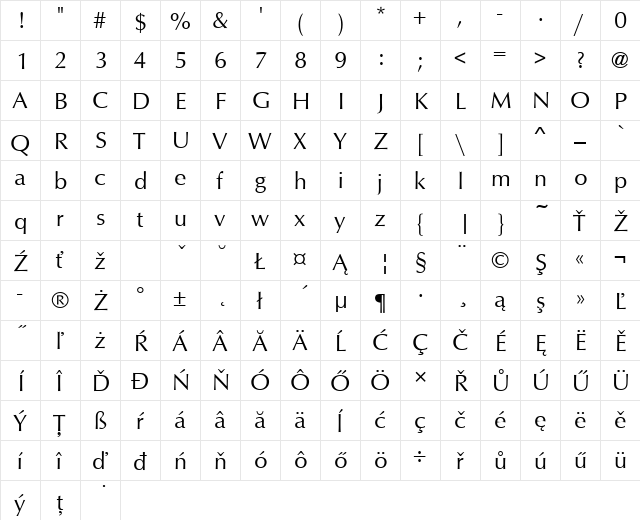
OptusTEEReg Regular
Design Context for OptusTEEReg Typeface
OptusTEEReg offers clean, dependable letterforms without strong stylistic allegiance, making it a practical choice for designers who need flexibility.